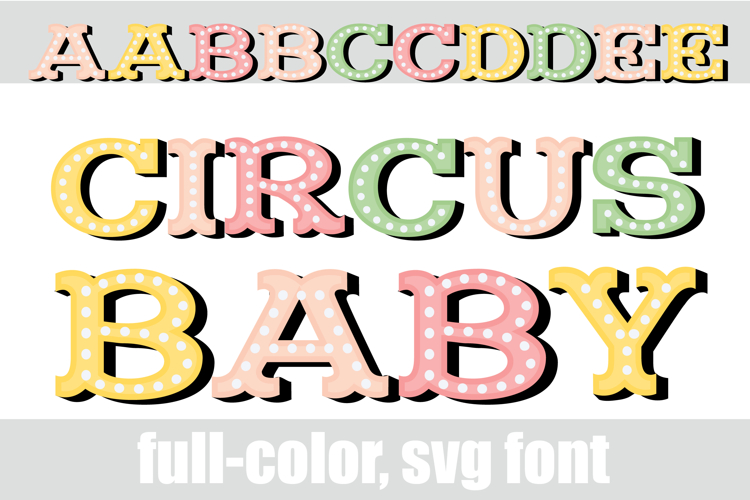
Circus Baby Color Font
This full-color, pastel-colored font features a whimsical circus style font and dots. There is an alt case of each letter with a different color combination.